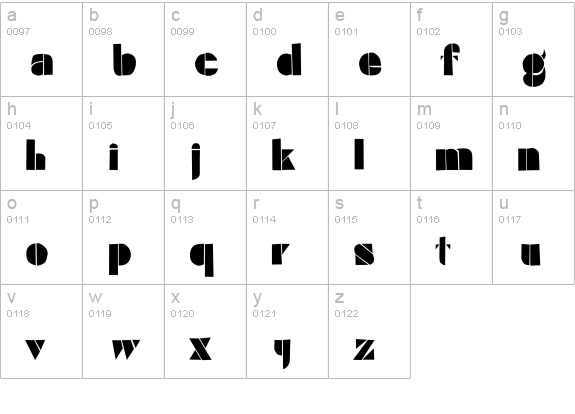
BilBurr Font Details
BilBurr font is a charming and versatile typeface that exudes a sense of sophistication and elegance. Its sleek and modern design makes it perfect for a wide range of projects, from branding to editorial design. With its unique blend of classic and contemporary elements, BilBurr font adds a touch of refinement to any text. The best part? It's completely free to download at FontsMarket.com. Don't miss out on the opportunity to elevate your designs with the stunning BilBurr font today!